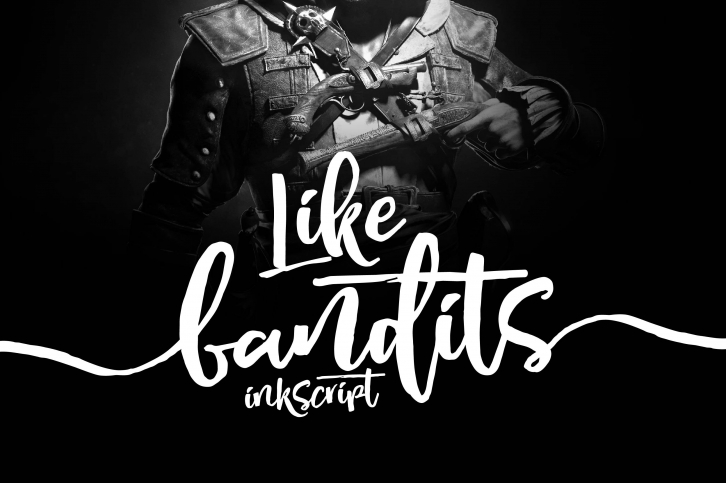
Like Bandits Ink Script is a beautiful ink Script, It suitable for wedding invitation, greeting cards, T-Shirt, Logo or any design that you create.comes with a complete set of standard characters, Alternates, Punctuation & international glyphs
- UPPERCASE
- lowercase
- numeral
- punctuation
- international glyphs
- Alternates Glyphs